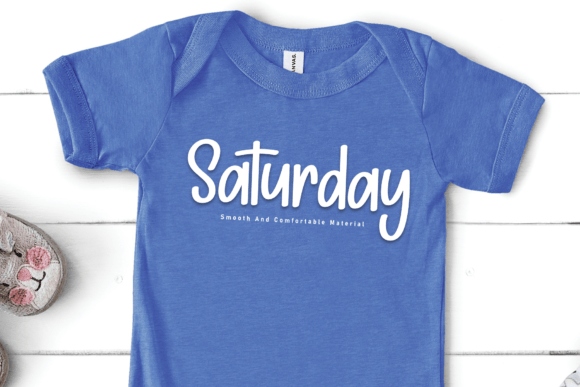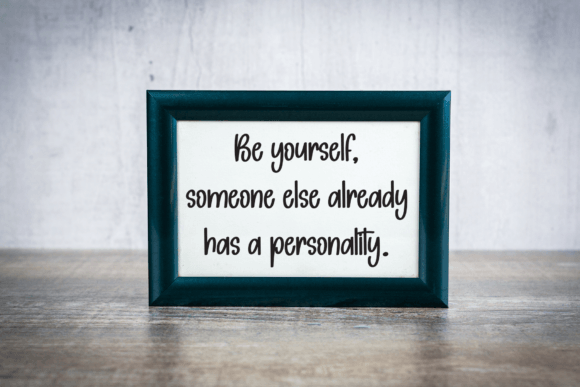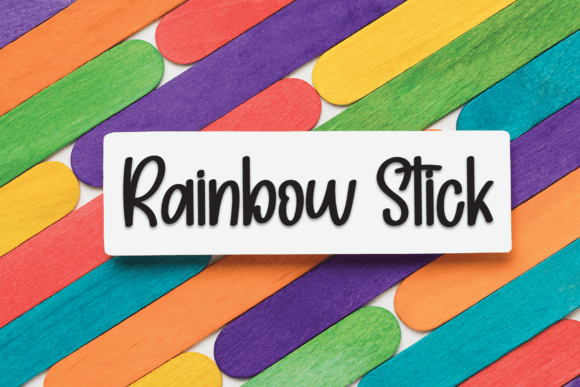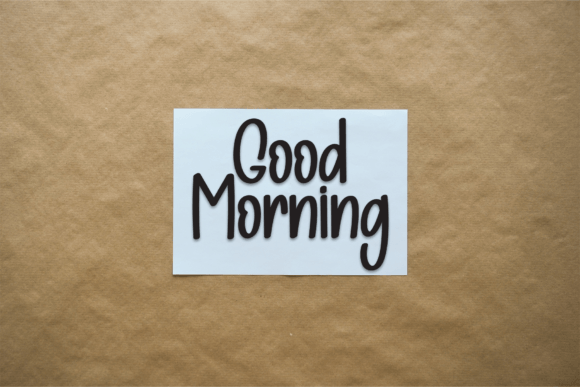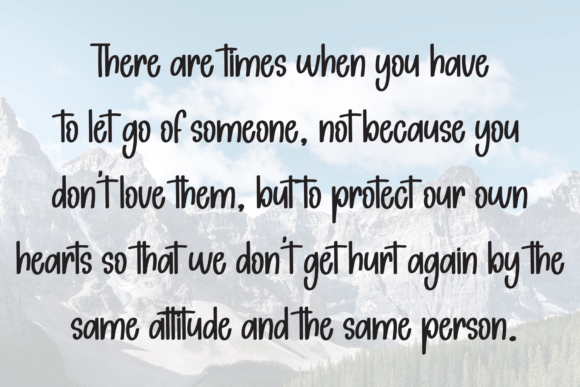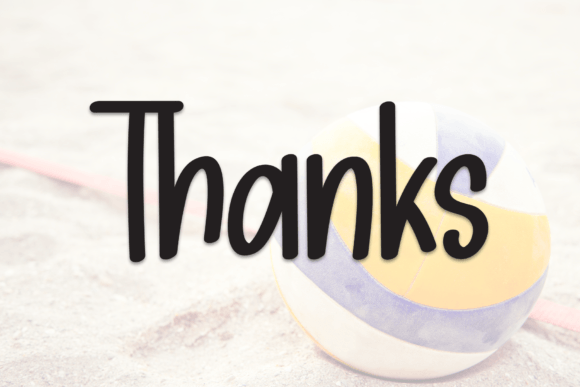
Unleash Your Creativity with Beach Volleyball Font
Have you ever been strolling along the beach, feeling the warm sand between your toes and the ocean breeze in your hair, and suddenly, a burst of inspiration strikes? You envision a beautiful design, with bold colors and playful typography. For many designers, this is the moment when creativity knows no bounds.
Beach Volleyball Font is a sweet and friendly handwritten font that captures the essence of that carefree moment. Its natural and unique style makes it incredibly fitting to a large pool of designs, from beach-themed projects to casual greeting cards. Whether you’re a seasoned designer or just starting out, Beach Volleyball Font is the perfect tool to bring your imagination to life.
With its versatility and charm, Beach Volleyball Font is a valuable addition to any designer’s toolkit. Its limitless possibilities make it the perfect choice for anyone looking to add a personal touch to their designs.
Beach Volleyball Font Key Features
- Font Family: Beach Volleyball Font is a unique, custom-designed font family.
- Unique Characteristics: The Beach Volleyball Font features a fun, energetic vibe with stylized letters and symbols that evoke the spirit of beach volleyball.
- Glyphs and Characters: The font includes a wide range of glyphs and characters, including letters, numbers, punctuation, and special symbols, making it suitable for various design projects.
Beach Volleyball Font Review
When I first saw the “Beach Volleyball Font”, I was immediately drawn to its playful and energetic vibe ✨. The font’s rounded edges and laid-back feel make it perfect for projects that need a fun, summer-inspired touch. It’s great for creating a casual, beachy atmosphere in brochures, posters, and even digital designs.
One of the things I love about this font is its versatility ✨. It can be used for a wide range of projects, from advertising and marketing materials to packaging and even social media graphics. The font’s light and airy feel makes it perfect for adding a touch of whimsy to your designs.
- ⚠️ Limited in its use for formal or professional projects, as it may come across as too casual or playful.
- ⚠️ May not be suitable for projects that require a lot of text or dense typography, as it can become difficult to read.
Overall, I think the “Beach Volleyball Font” is a great addition to any designer’s toolkit ✨. While it may have some limitations, its playful and energetic vibe make it perfect for projects that need a fun and lighthearted touch. With a little creativity and restraint, this font can add a lot of personality to your designs.
Use the Beach Volleyball font for sports-related projects, such as beach volleyball tournaments, sports magazines, or athletic wear branding.
For best results, pair the font with bold, bright colors and beach-inspired imagery.
Experiment with different font sizes and styles to create a dynamic and eye-catching visual effect.
Pacifico is a beautiful, elegant script font that’s perfect for designs that require a touch of sophistication and playfulness. It’s great for creating invitations, wedding designs, or any project that needs a relaxing and beachy vibe.
Compared to Beach Volleyball Font, Pacifico is more elegant and sophisticated, while Beach Volleyball Font is more playful and casual.
Great Vibes is a modern, handwritten font that’s perfect for designs that require a fun and carefree feel. It’s great for creating posters, flyers, or any project that needs a laid-back and beachy vibe.
Compared to Beach Volleyball Font, Great Vibes is more modern and sleek, while Beach Volleyball Font is more playful and retro.
Dancing Script is a elegant, cursive font that’s perfect for designs that require a touch of sophistication and elegance. It’s great for creating invitations, wedding designs, or any project that needs a classic and beachy vibe.
Is the Beach Volleyball Font available in different font weights?
Yes, the Beach Volleyball Font is available in several font weights, including Light, Regular, Medium, Bold, and Extra Bold. This allows designers to choose the perfect weight to match their design needs, from subtle signage to bold advertising.